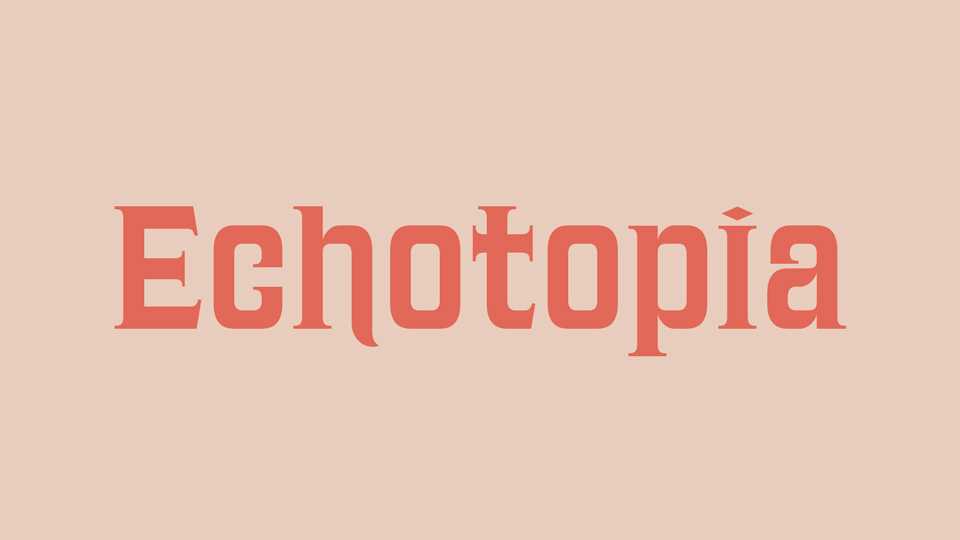
Download Echotopia font, a vintage serif typeface based on the masthead of an issue of The Echo published sometime between 1890 and 1900 according to the Library of Congress.
Designer: Erik Kirtley